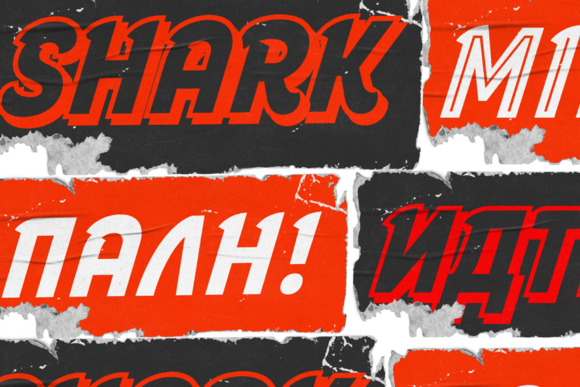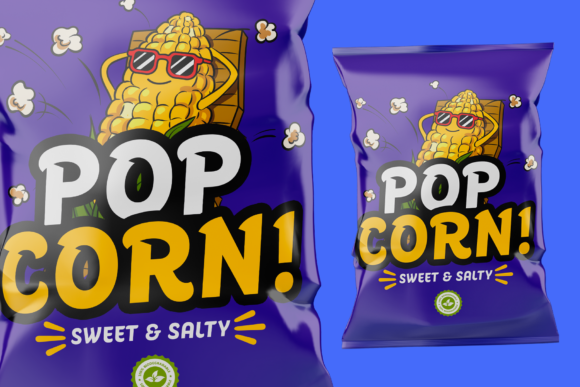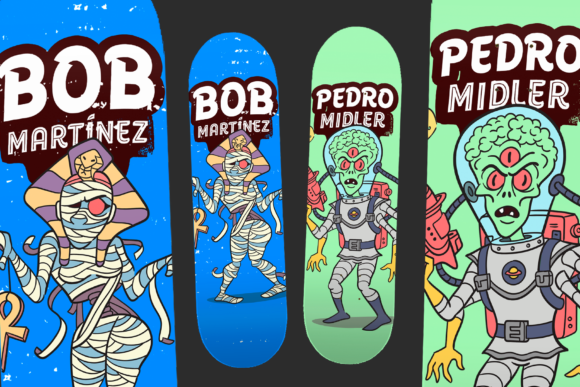
Discovering the Perfect Font for Your Creative Project
Have you ever been in the middle of a design project, pouring your heart and soul into it, only to feel like something’s missing? That’s when you stumble upon the perfect font, and everything clicks into place. For designers, finding that one special font can make all the difference in bringing a project to life.
That’s where the
Ripster Font
comes in – a game-changing addition to any design resource library. With its retro vibe and paint-brushed aesthetic, Ripster Font is the perfect choice for designers looking to add a touch of nostalgia and elegance to their work.
Key Features of Ripster Font
- Unique and bold sans-serif design ideal for creative projects
- High-quality font with transparent background for seamless integration
- Large character set with extended Latin support, making it suitable for global creative projects
- High-resolution design (up to 2048×2048 pixels) for crisp and clear display on various screens
- Perfect for logos, branding, and typography-based creative projects requiring a strong, modern look
Honest Review: Ripster Font
I recently came across the Ripster Font, a free download that has been making waves in the design community. As a designer, I was eager to put it to the test and see if it lived up to the hype.
- High-quality characters with a unique, distressed aesthetic ✨
- Transparent background, making it easy to layer over images or other design elements ✨
- Great for creative projects that require a rugged, edgy feel ✨
- Limited character set, which may not be ideal for longer blocks of text ⚠️
- No bold or italic variations, which can make it difficult to add emphasis ⚠️
Overall, I’m impressed with the Ripster Font’s unique style and high-quality design. While it may not be perfect for every project, it’s definitely a valuable addition to any designer’s toolkit. As a free download, it’s a great resource for designers on a budget or looking for a specific aesthetic. Just be aware of its limitations and use it accordingly.
Tips for Getting the Most Out of Ripster Font
For a professional look, use the Ripster Font in conjunction with a clean and simple design. Experiment with different font sizes and styles to create visual interest. You can also use the font in combination with other design elements to add depth and texture to your project.
The Ripster Font is ideal for creative projects such as:
- Logo designs
- Brochures and flyers